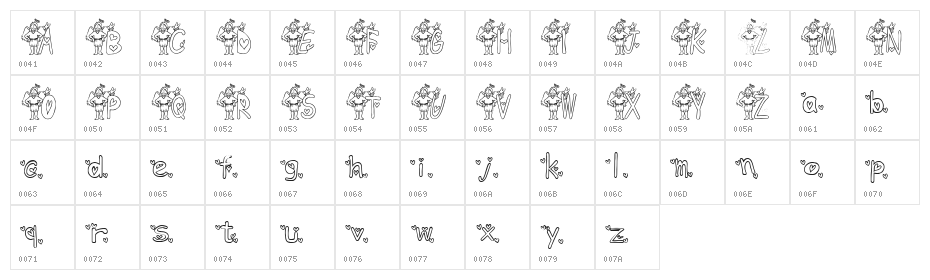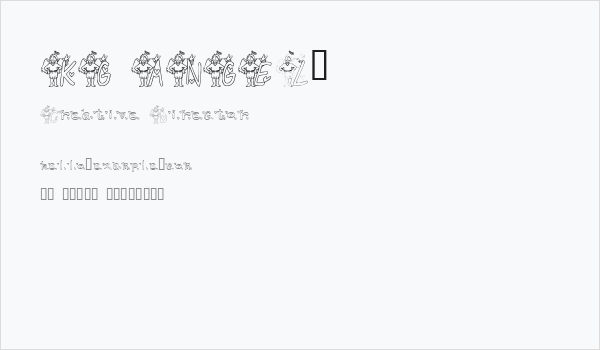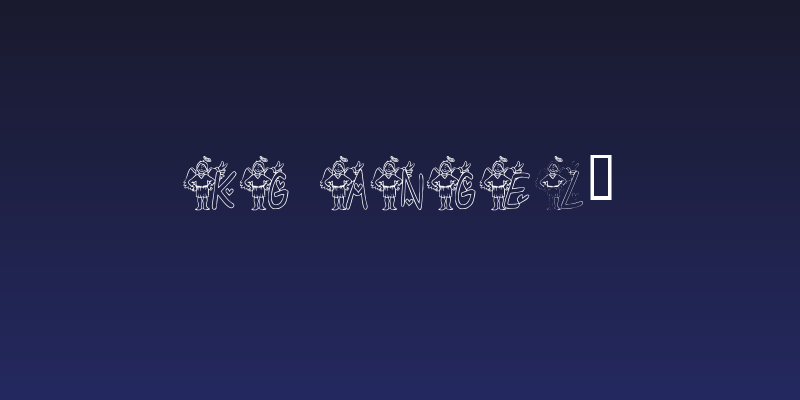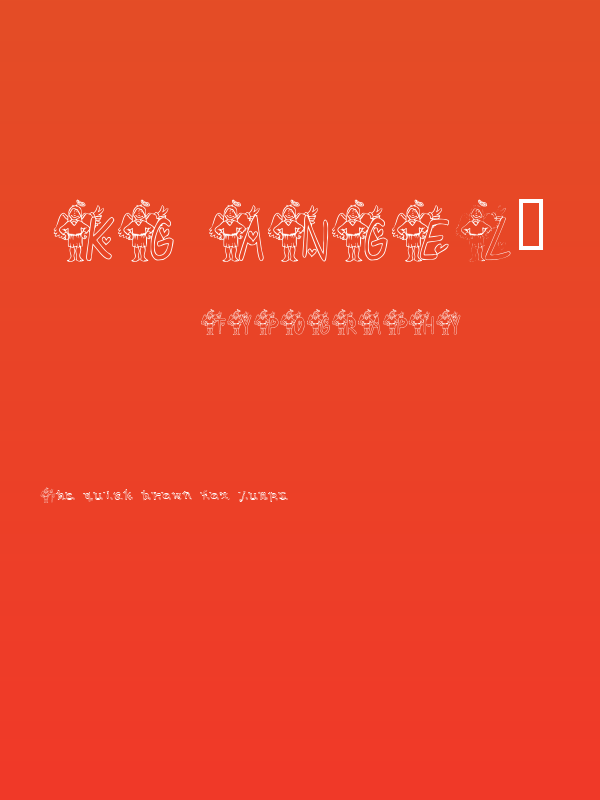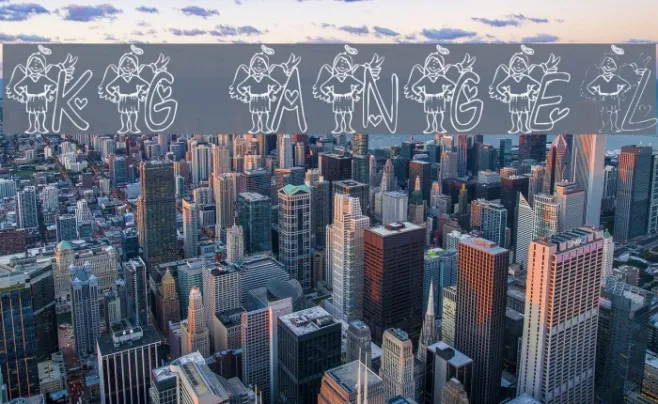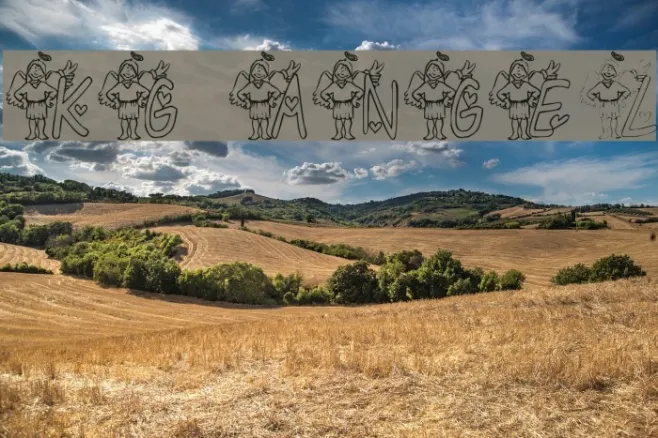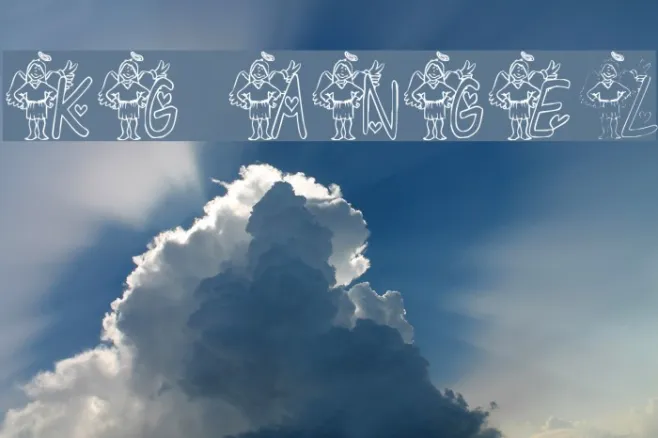
KG ANGEL3 Font
KG ANGEL3 Description
This whimsical and playful font features characters adorned with charming angel illustrations. Each letter is creatively integrated with an angel motif, giving it a unique and decorative appearance. The uppercase letters are more elaborate, with detailed angel figures, while the lowercase letters maintain a simpler, yet equally delightful style. The font includes a full set of uppercase and lowercase letters, numbers, and a selection of special characters. Its hand-drawn quality and imaginative design make it stand out, perfect for projects that require a touch of fantasy or a playful theme.
| Proposed Projects | Ideal for children's book covers, greeting cards, playful invitations, and fantasy-themed projects. |